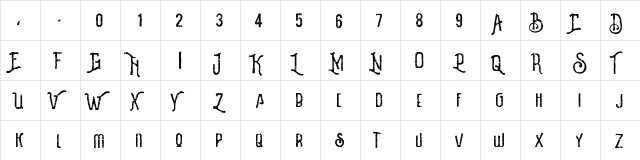
Revalina Regular
| Foundry | Runsell Graphic |
| Designer | Fitriyawan |
Design Context for Revalina Typeface
Revalina is a composed and adaptable typeface that performs quietly and consistently across a wide range of design contexts.